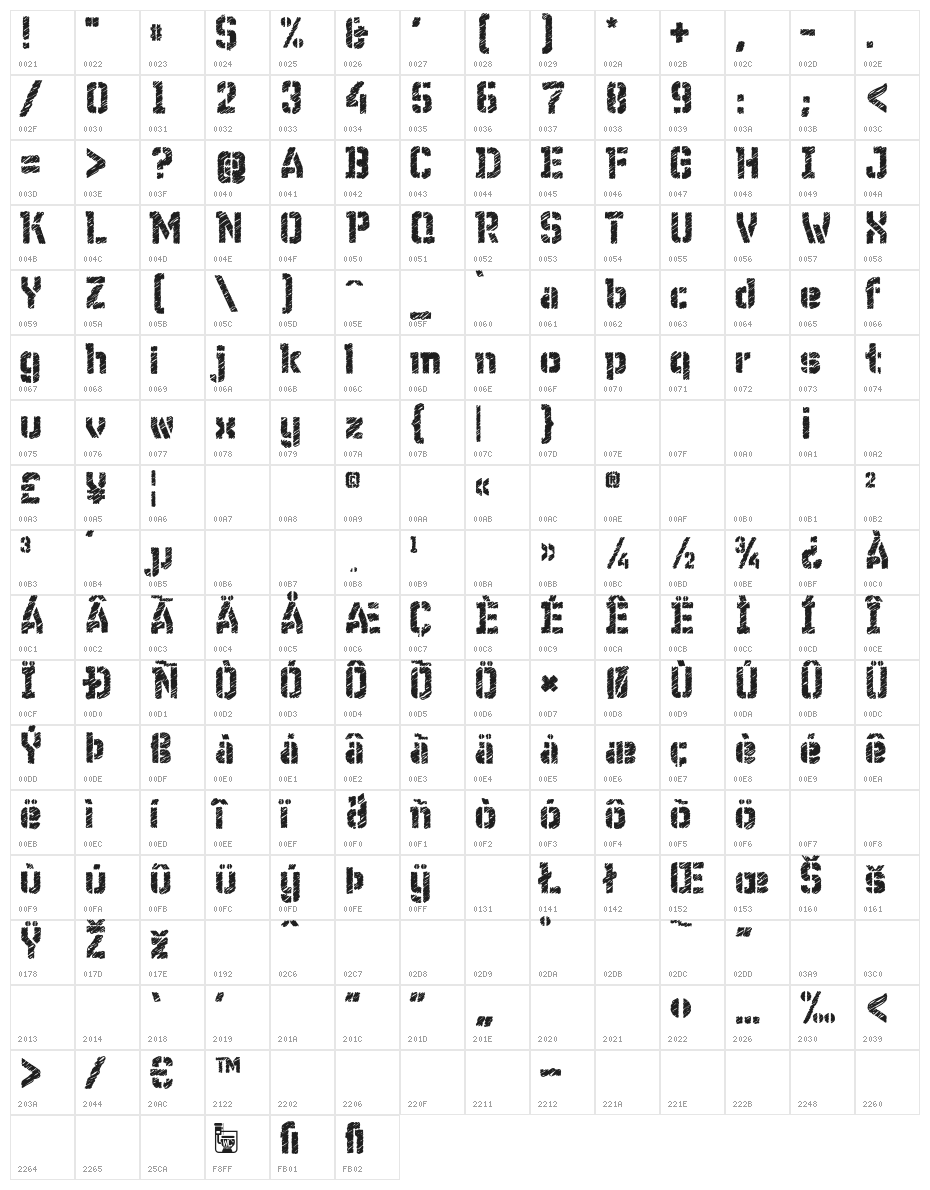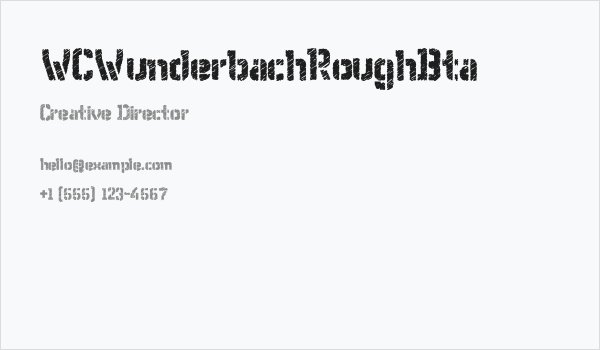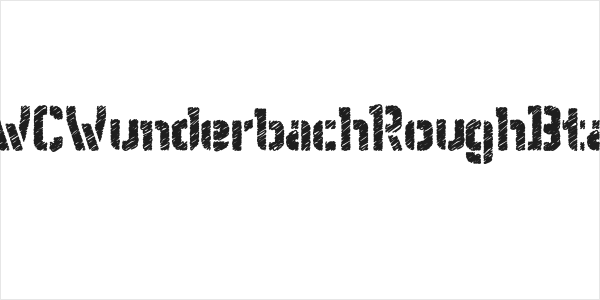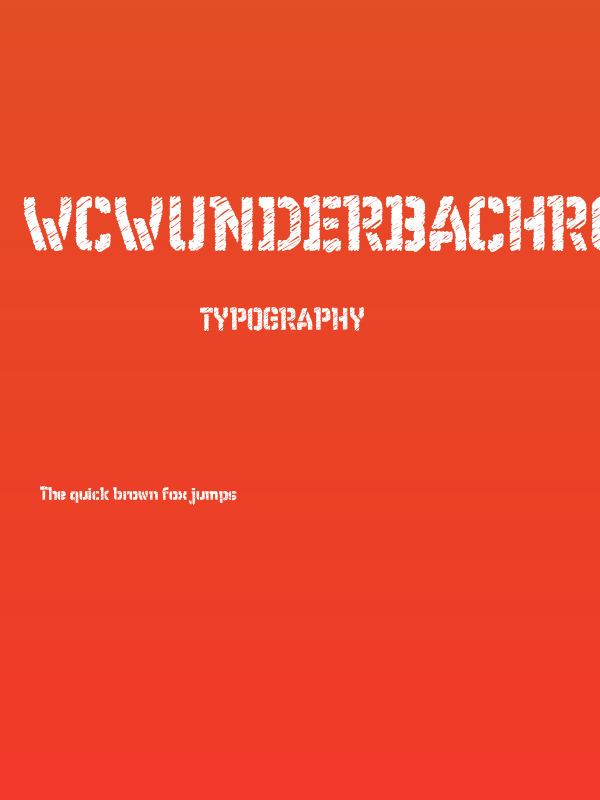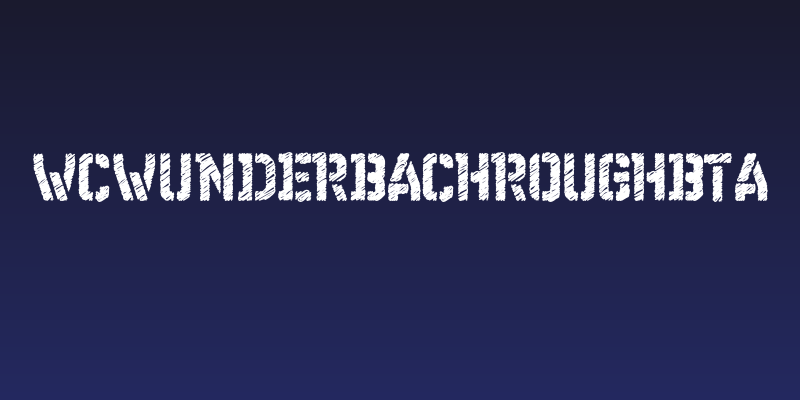
WCWunderbachRoughBta Font
WCWunderbachRoughBta Description
This font features a bold, rough texture that gives it a rugged and distressed appearance. Each character is filled with diagonal lines that create a hand-drawn, sketch-like effect. The uppercase and lowercase letters maintain a consistent style, with a strong emphasis on boldness and texture. The numbers and special characters follow the same design, ensuring a cohesive look across all glyphs. This font's unique style makes it stand out, offering a visually striking option for creative projects.
| Proposed Projects | Ideal for posters, album covers, branding projects, and any design that requires a bold, artistic touch. |